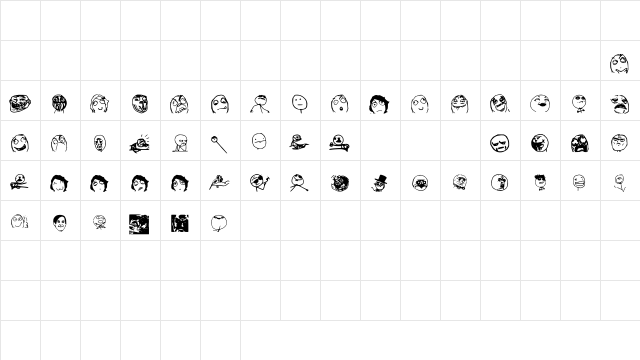
Memefont2 Medium
Design Context for Memefont2 Typeface
Memefont2 is a composed and adaptable typeface that performs quietly and consistently across a wide range of design contexts.